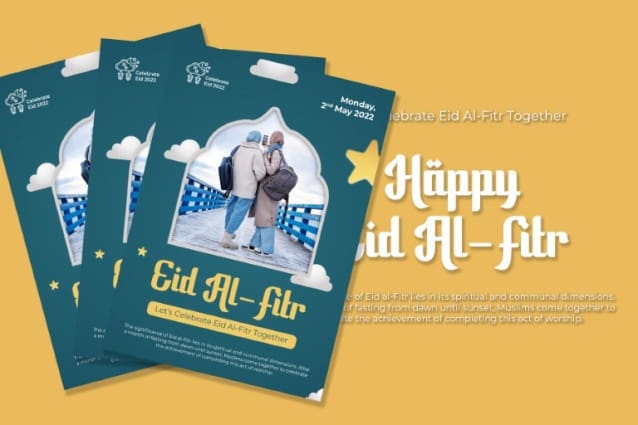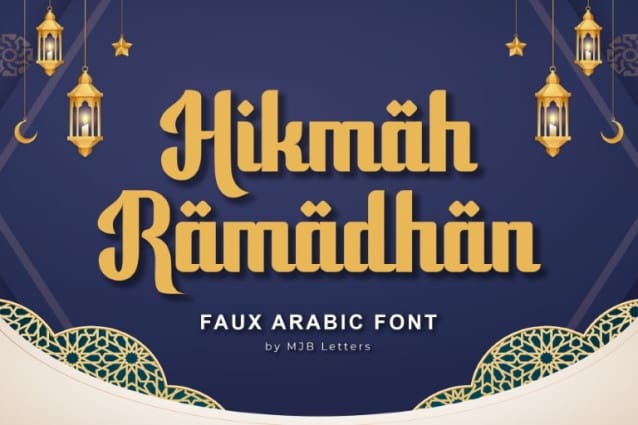
Hikmah Ramadhan Font
Hikmah Ramadhan Font is a font that blends distinctive Arabic elements with a modern touch, specifically crafted for various design needs with an Islamic theme. With its elegant calligraphic style and delicate details, this font brings forth a sense of spirituality and grace in every character. It’s suitable for use in creating posters, greeting cards, graphic designs, and various other creative projects aiming to evoke the unique and profound essence of Ramadan. With “Hikmah Ramadhan,” messages of wisdom and spirituality can be conveyed beautifully and memorably.